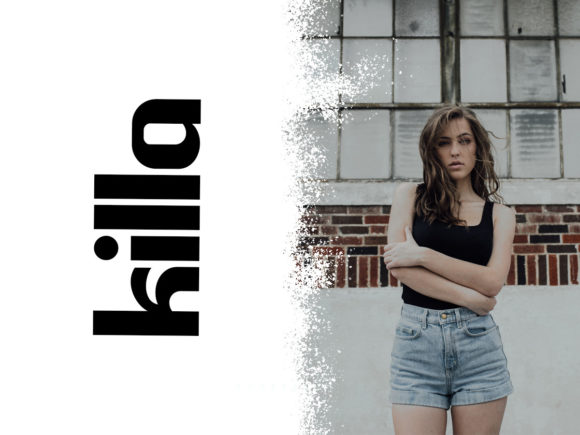
**Introducing Killa: The Ultimate Display Font for Captivating Designs**
Embark on a visual odyssey with Killa, an extraordinary display font meticulously crafted to ignite your creativity and leave an indelible mark on the digital realm. Whether your canvas is a captivating website, an unforgettable business card, or any other design seeking a touch of distinction, Killa stands ready to elevate your vision.
Step into a world where fonts dance with charisma and style, where Killa reigns supreme. Its sleek and modern aesthetic effortlessly enhances the allure of your web designs, transforming them into masterpieces that captivate and inspire. The possibilities are limitless as Killa empowers you to craft logos that exude confidence, headlines that command attention, and social media graphics that spark engagement.
Unleash your imagination and delve into the depths of Killa's versatility. Its bold strokes and sharp angles lend themselves seamlessly to a myriad of design projects, from eye-catching posters that demand attention to brochures that leave a lasting impression. Each letterform is a work of art, meticulously designed to create a visual symphony that harmonizes with your creativity.
With Killa at your fingertips, the mundane becomes extraordinary. Transform ordinary text into captivating headlines that dance off the page, ensuring your message resonates with clarity and impact. Elevate your social media presence to new heights with graphics that ignite engagement and leave a lasting impression on your audience.
Killa is not merely a font; it's an invitation to let your imagination soar. Embrace its allure and watch your designs blossom into breathtaking creations that captivate, inspire, and leave an enduring legacy.
**Why Choose Killa?**
* **Unleash Your Creativity:** Experience boundless creative freedom as Killa empowers you to craft designs that radiate originality and style.
* **Captivating Displays:** Create digital masterpieces with Killa's magnetic presence, ensuring your designs command attention and leave a lasting impact.
* **Limitless Versatility:** Explore the endless possibilities as Killa seamlessly adapts to a wide range of design projects, from web designs to logos and beyond.
* **Effortless Elegance:** Elevate your designs with Killa's effortless elegance, transforming ordinary text into captivating headlines and stunning graphics.
* **Unleash Your Inner Artist:** Unlock your creative potential with Killa, the font that empowers you to express your unique vision and leave an indelible mark on the digital world.